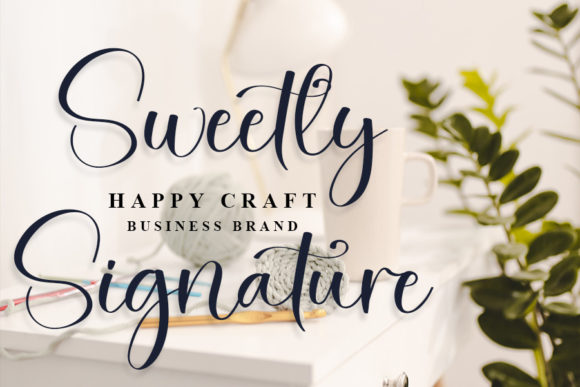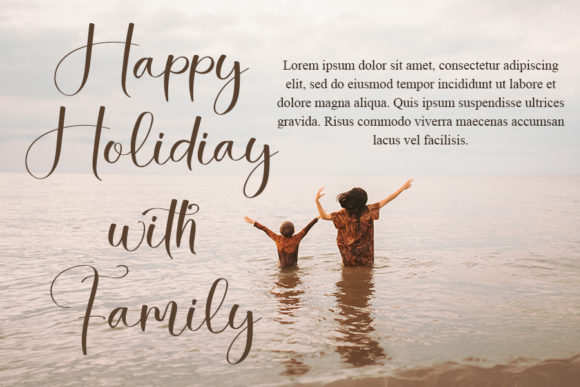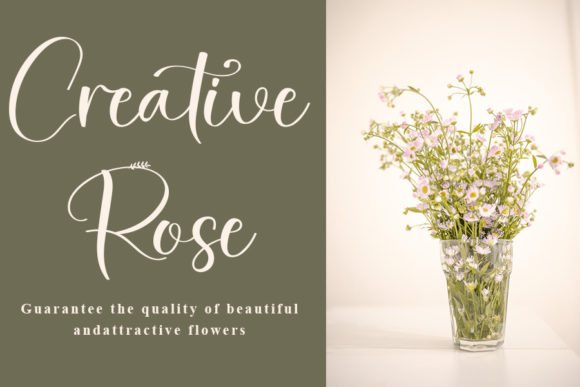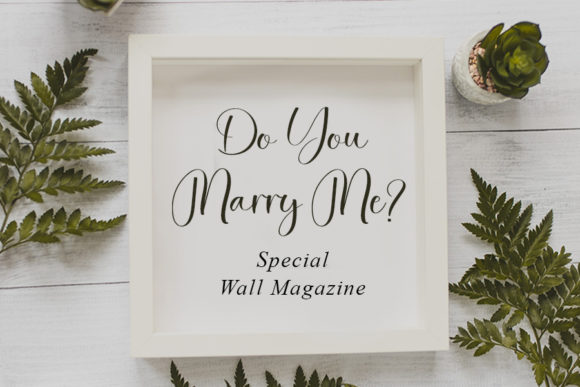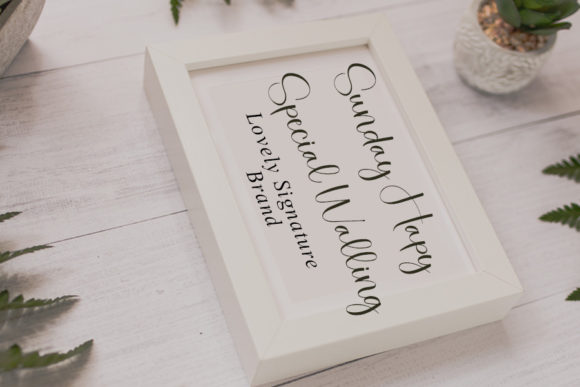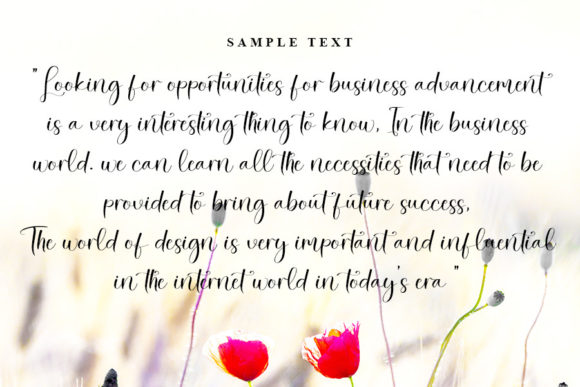
Gallmise Font: Elevate Your Designs with Timeless Elegance
In the world of typography, a well-crafted font can make all the difference in elevating your designs from ordinary to extraordinary. Introducing Gallmise Font, a stylish handwritten font that embodies the perfect blend of contemporary flair and classic sophistication. Inspired by timeless calligraphy, Gallmise is designed to bring an air of elegance and refinement to your projects.
The Inspiration Behind Gallmise
Gallmise Font draws its inspiration from the art of traditional calligraphy, where every line, curve, and flourish is a testament to the artisan’s skill and craftsmanship. The result is a font that exudes a sense of luxury, poise, and refinement, perfect for designers and crafters seeking to add a touch of sophistication to their work.
Key Features of Gallmise Font
- Contemporary yet Classic: Gallmise strikes the perfect balance between modern style and timeless elegance, making it versatile enough to suit a wide range of design applications.
- Handwritten with Flair: The font’s handwritten nature gives it a personal and approachable feel, while its impeccable form ensures that it remains legible and refined.
- Balanced and Varied: Gallmise boasts a range of characters and ligatures, allowing you to create complex and visually appealing text arrangements that keep your audience engaged.
Design Applications for Gallmise Font
Gallmise Font’s versatility makes it suitable for a variety of design projects, including:
- Branding and Logos: Create a lasting impression with a logo that embodies sophistication and style.
- Wedding and Event Stationery: Add a touch of elegance to your wedding invitations, menus, and other event materials.
- Packaging and Product Design: Stand out on store shelves with packaging that exudes luxury and refinement.
- Digital Media: Enhance your website, social media, or advertising campaigns with a font that commands attention and respect.
Why Choose Gallmise Font?
In a sea of generic fonts, Gallmise stands out for its unique blend of style, elegance, and versatility. Here are just a few reasons why designers and crafters are choosing Gallmise:
- Unique and Memorable: Gallmise’s distinctive character ensures that your designs will be remembered long after they’re seen.
- Easy to Read: Despite its elegant nature, Gallmise remains highly legible, making it perfect for body text and headlines alike.
- Highly Customizable: With a range of characters, ligatures, and swashes, you can tailor Gallmise to suit your design needs.
Gallmise Font is more than just a typography – it’s an experience. With its perfect blend of contemporary style and classic elegance, Gallmise has the power to elevate your designs and leave a lasting impression on your audience. Whether you’re a designer, crafter, or simply someone who appreciates the art of typography, Gallmise is an excellent choice for anyone seeking to add a touch of sophistication and refinement to their work.